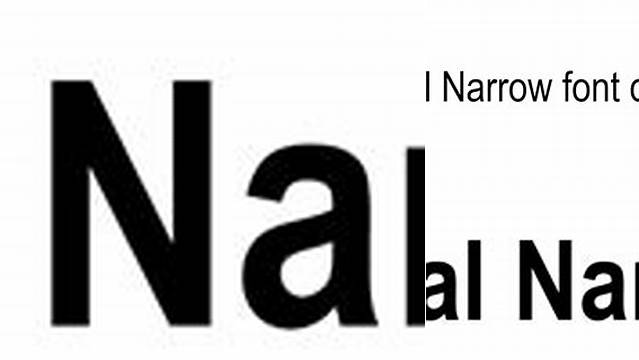
Hey guys! Are you looking for a sleek and versatile font for your next project? Look no further! The Arial Narrow font is a fantastic choice, and the best part is, you can find it for free! This article is your ultimate guide to downloading Arial Narrow, understanding its uses, and exploring similar fonts. We'll dive deep into everything you need to know, so let's get started!
Arial Narrow: A Versatile Font
Let's kick things off by understanding why Arial Narrow is such a popular choice. This font is a condensed version of the classic Arial, meaning it's narrower and more compact. This makes it perfect for situations where space is limited, but you still need clear and readable text. Think about brochures, websites with tight layouts, or even presentations where you want to fit a lot of information on a single slide. The beauty of Arial Narrow lies in its simplicity and readability, making it a go-to option for designers and content creators alike.
The Arial Narrow font is a true workhorse, able to handle a wide variety of design needs. Its clean lines and straightforward design mean it won't distract from your message. It works well for body text, headings, captions, and more. Plus, its wide character set means it supports multiple languages, making it a global-friendly option. When you choose Arial Narrow, you're choosing a font that's both functional and aesthetically pleasing, ensuring your text looks professional and polished no matter the context. We will delve into downloading this font for free later, but let's first explore its features and see why it is so popular.
Arial Narrow has several key characteristics that make it a standout font. Its condensed form factor is the most obvious, allowing you to pack more text into a smaller space without sacrificing readability. This is a huge advantage in situations where space is at a premium. Beyond its width, Arial Narrow boasts excellent legibility thanks to its clear letterforms and balanced design. The letters are well-proportioned and easy to distinguish, even at small sizes. This makes it a great choice for both print and digital applications. The font also features a consistent weight and style across all characters, contributing to a cohesive and professional look. With its versatility and readability, Arial Narrow is a font that can adapt to a wide range of design needs, making it a valuable addition to any font library.